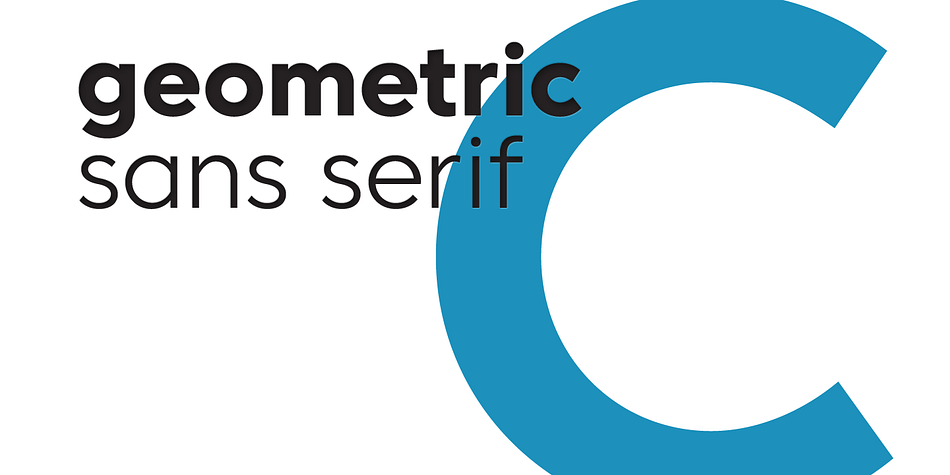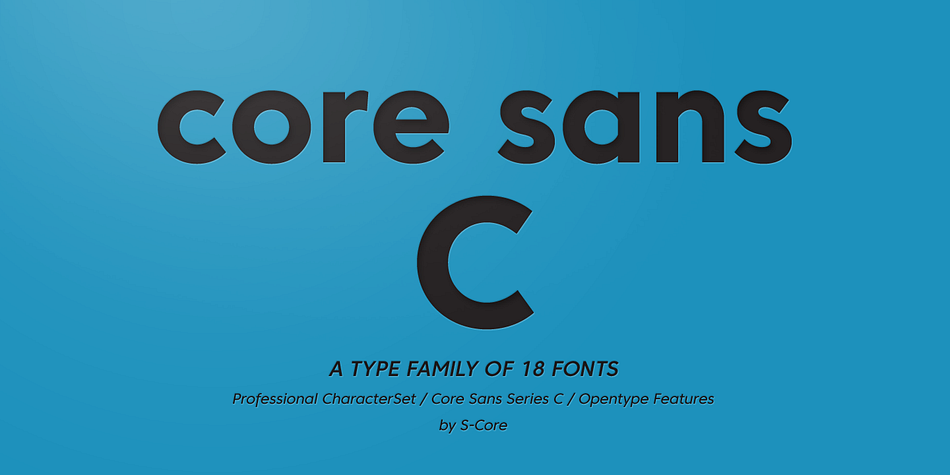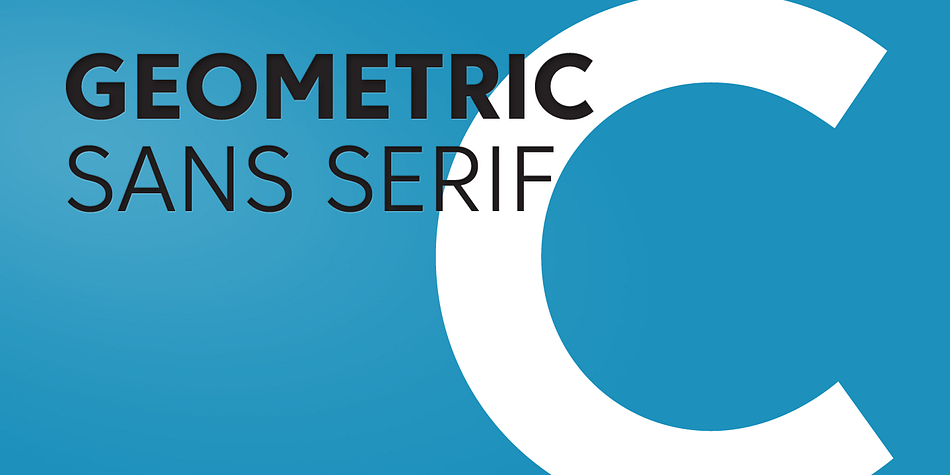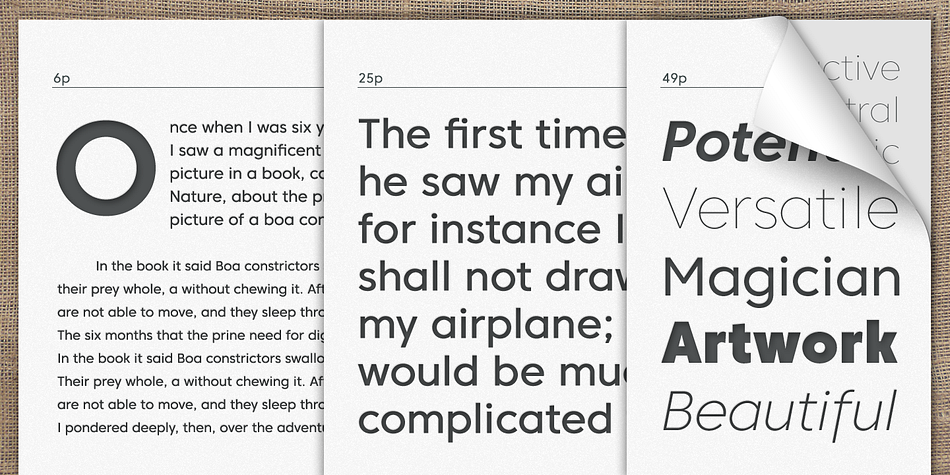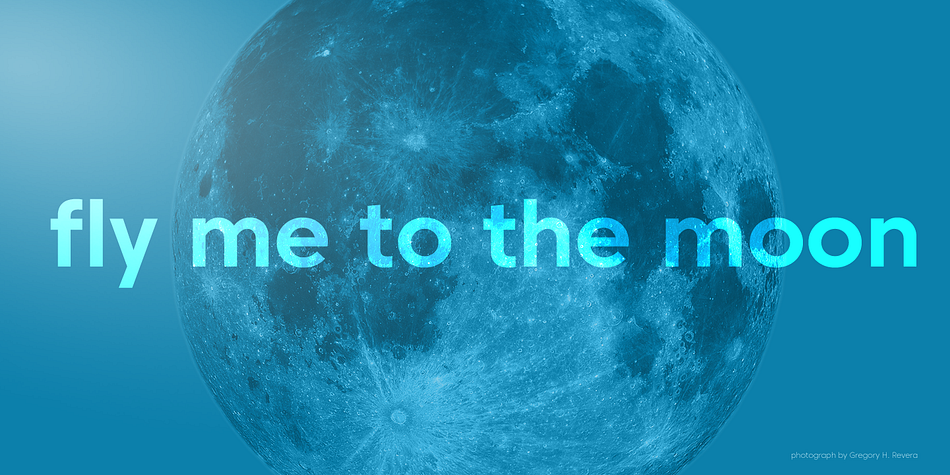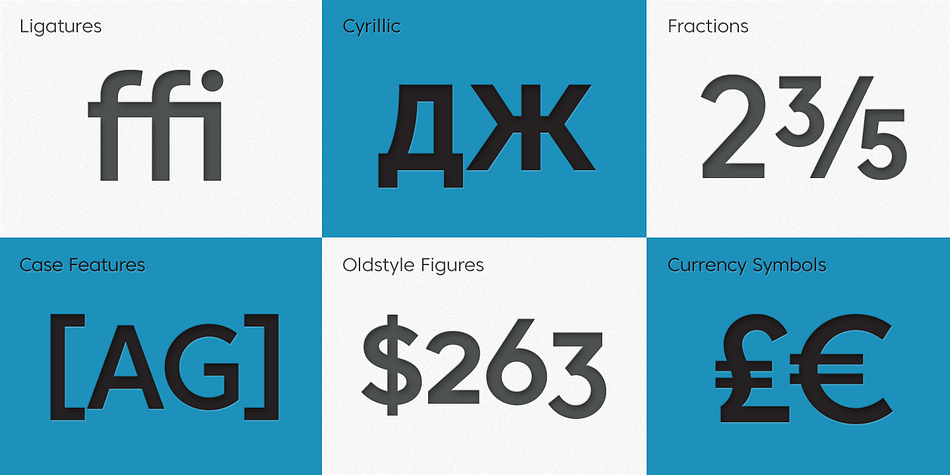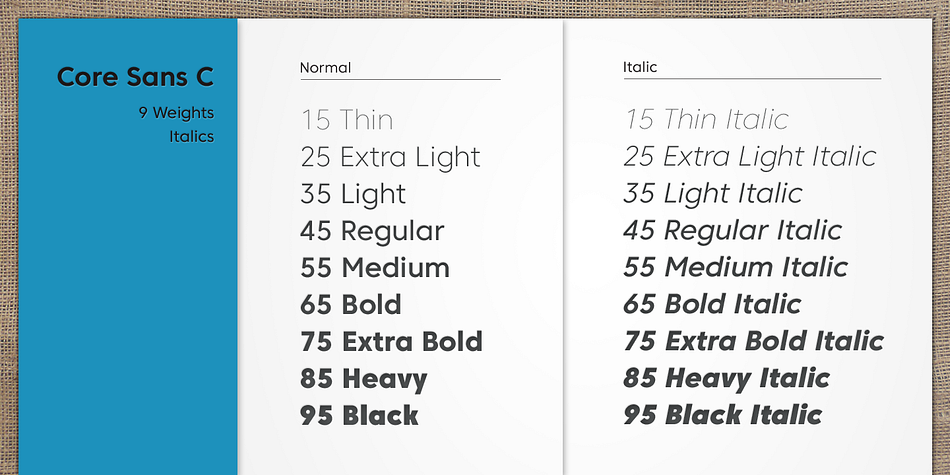
Core Sans C is a sans serif font family. This typeface has eighteen styles and was published by S-Core.
Core Sans C family is a part of the Core Sans Series, such as N, M, E, A, D, G, R, and B.
Core Sans C is inspired by classic geometric sans (Futura, Avenir, Avant Garde etc.). It is based on geometric shapes, like near-perfect circle and square.
It has a much higher x-height (height of lowercase letters), an effect which promotes readability especially at small print sizes.
The Core Sans C Family consists of 9 weights (Thin, Extra Light, Light, Regular, Medium, Bold, Extra Bold, Heavy, Black) and Italics for each format.
Core Sans C supports complete Basic Latin, Cyrillic, Central European, Turkish, Baltic character sets.
Each font includes proportional figures, tabular figures, oldstyle figures, numerators, denominators, superscript, scientific inferiors, subscript, fractions and case features.
Core Sans C is an ideal font family for use in magazines, web pages, screens, displays, and so on.